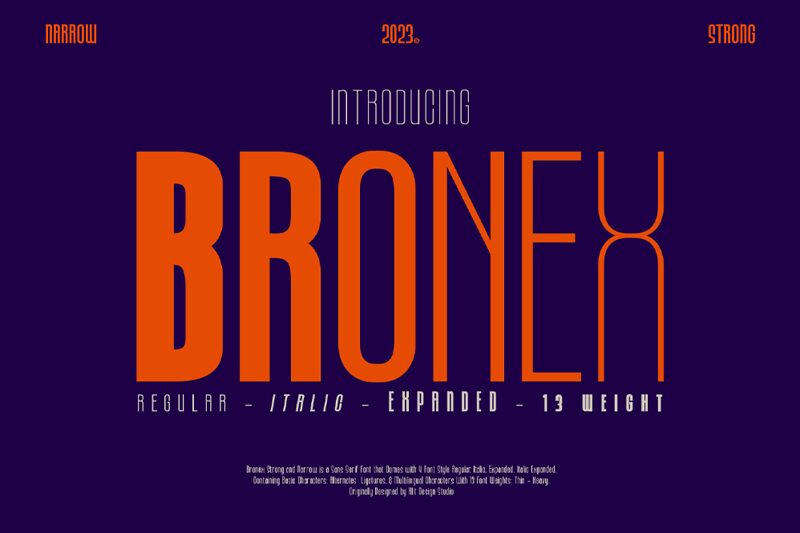
Bronex Bold Expanded, a captivating sans-serif font created by Alit Design, exudes a powerful and authoritative presence. With its condensed width and bold strokes, this font commands attention, making it an impactful choice for branding, headlines, and display purposes. The angular, geometric letterforms convey a sense of strength and modernity, while the expanded construction adds a touch of sophistication and elegance.
Bronex Bold Expanded's versatility allows it to shine in a variety of design contexts, from product packaging and editorial layouts to corporate identities and event materials. Its bold, distinctive character makes it an ideal selection for attention-grabbing titles, logos, and signage, where it can effectively convey a brand's confidence and visual impact.
Bronex Bold Expanded